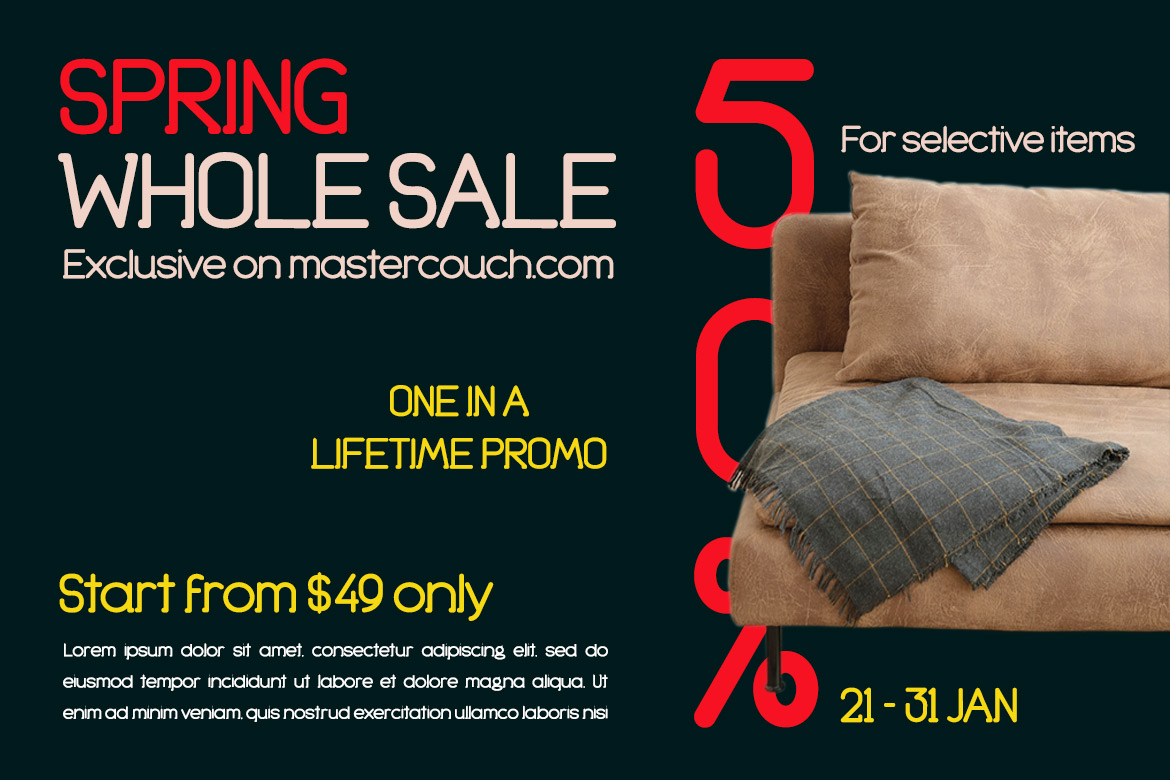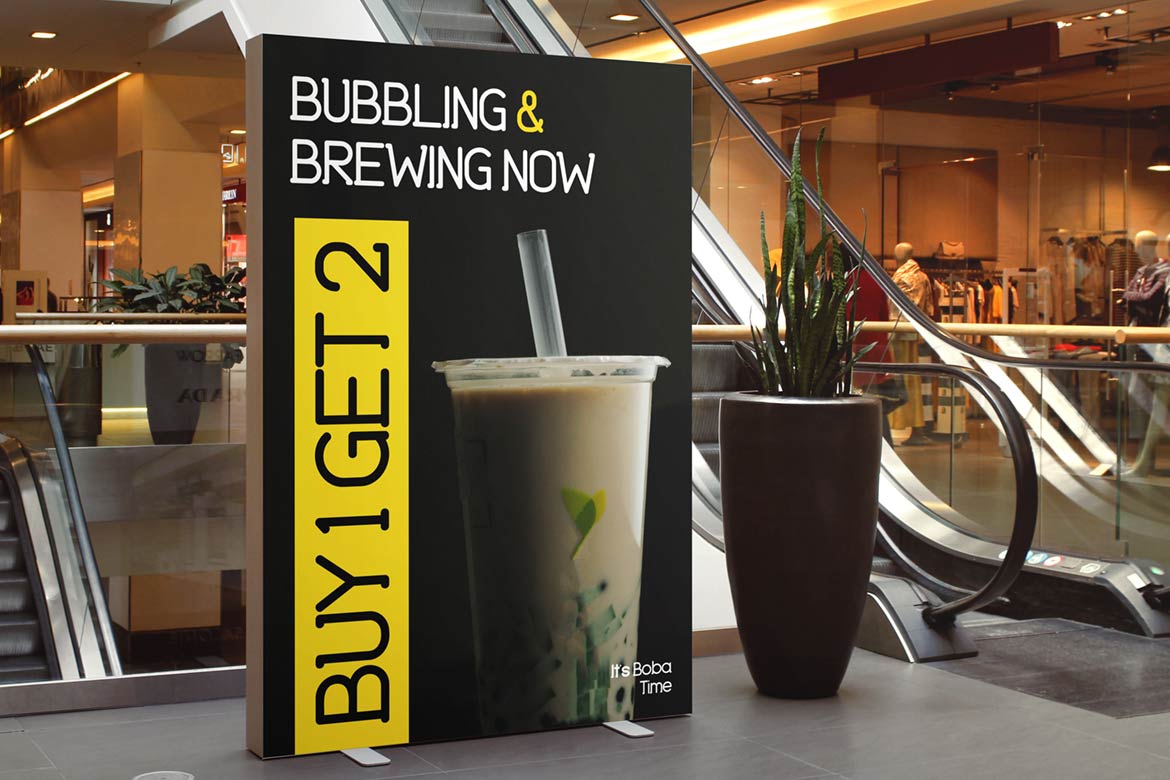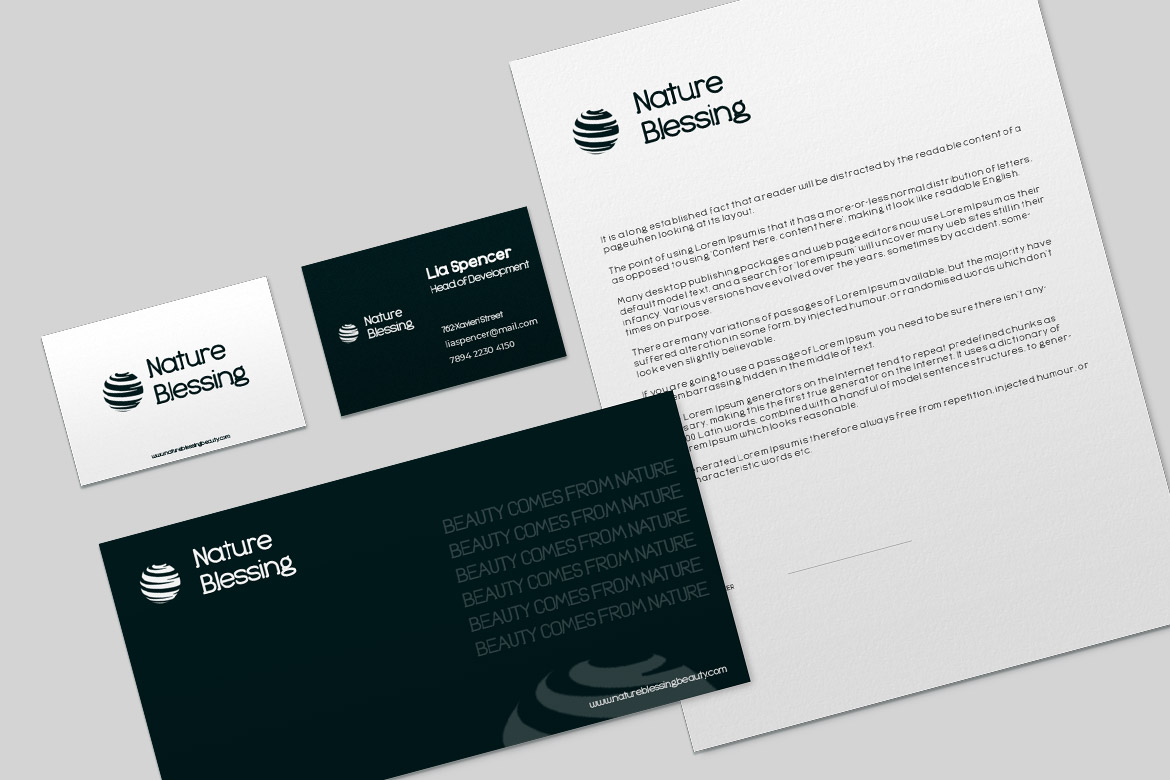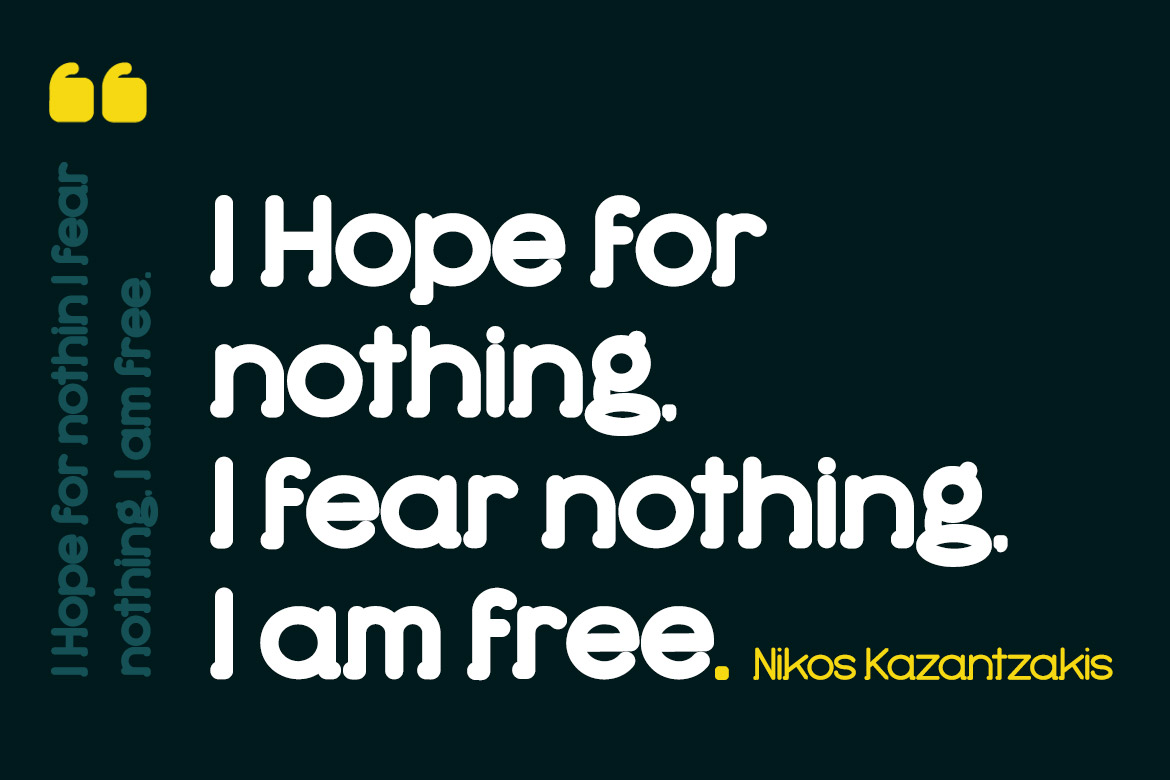
Introducing Haigo Font, our newest font. If you use this Sanserif font with a natural handwritten shape, it will complement your gorgeous project appearance with a distinct style than typical, and it will meet your diverse needs. This typeface is a blend of old and modern styles. of course, your various design projects will be perfect and extraordinary if you use this font because this font is equipped with a font family, both for titles and subtitles and sentence text, start using our fonts for your extraordinary projects.